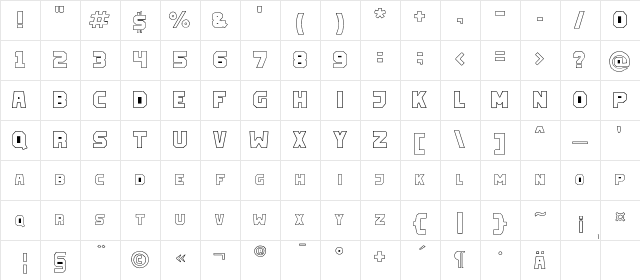
Complete TapeArtFont Medium glyph index. Displaying only characters natively supported by TapeArtFont Medium font.
TapeArtFont is a composed and adaptable typeface that performs quietly and consistently across a wide range of design contexts.